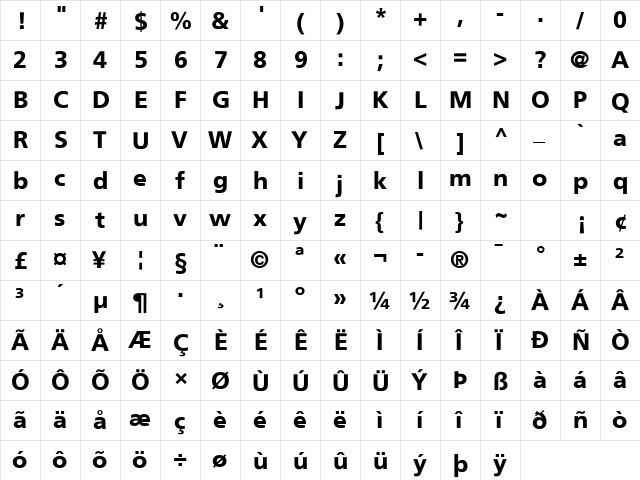
Doris PP bold
Design Context for Doris PP Typeface
Doris PP offers clean, dependable letterforms without strong stylistic allegiance, making it a practical choice for designers who need flexibility. Its bold stroke weight gives it real presence on the page.
Pro Tip: Pair Doris PP with a font of contrasting weight or personality to build a more expressive typographic hierarchy.